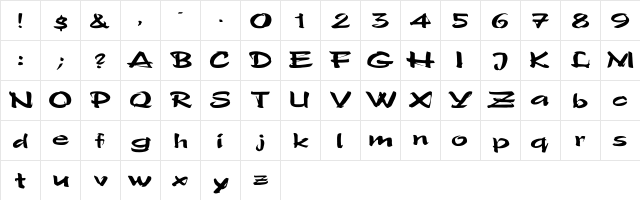
Polo-SemiScript Ex Regular
Design Context for Polo-SemiScript Ex Typeface
Polo-SemiScript Ex flows with the natural rhythm of handwritten lettering, making it ideal for designs that call for warmth and personal expression.
Font Pairing: Combine Polo-SemiScript Ex with a simple geometric sans for maximum contrast — the tension between flowing curves and clean structure is a classic typographic pairing.
Pro Tip: Use Polo-SemiScript Ex for short runs of text — names, titles, or taglines. Extended body copy in script faces tires the eye quickly.